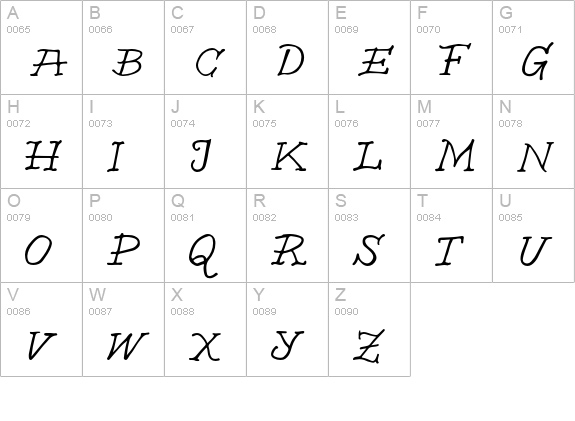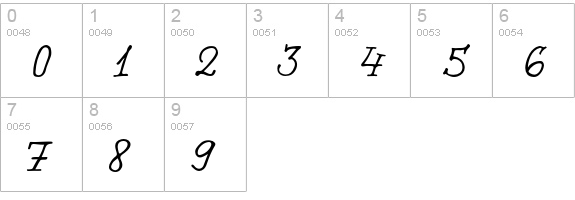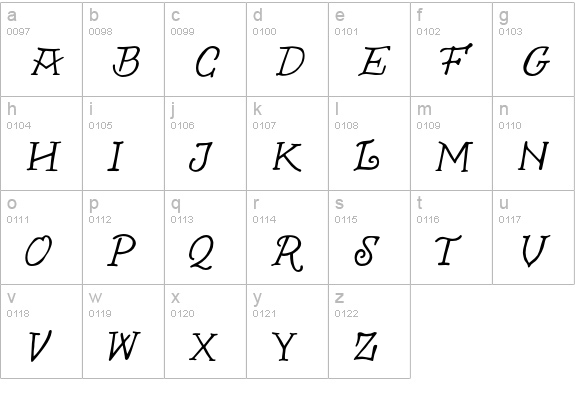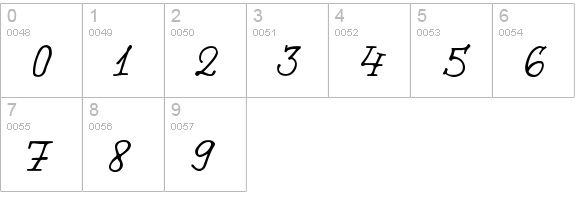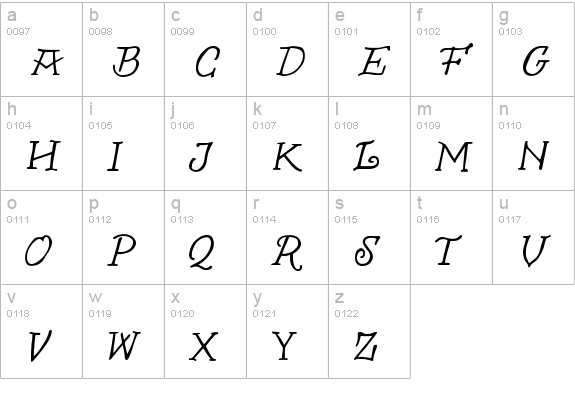
DistilleryCaps Font Details
DistilleryCaps font is a stylish and elegant typeface that exudes sophistication and charm. With its unique design featuring intricate details and a modern twist on classic typography, DistilleryCaps is perfect for adding a touch of class to your projects. Whether you're working on invitations, branding, or any other creative endeavor, this font is sure to make a statement. Best of all, DistilleryCaps is available for free download at FontsMarket.com. You can easily access this beautiful font and enhance your designs without any cost. Don't miss out on the opportunity to elevate your work with the timeless appeal of DistilleryCaps font. Download it today and let your creativity shine!